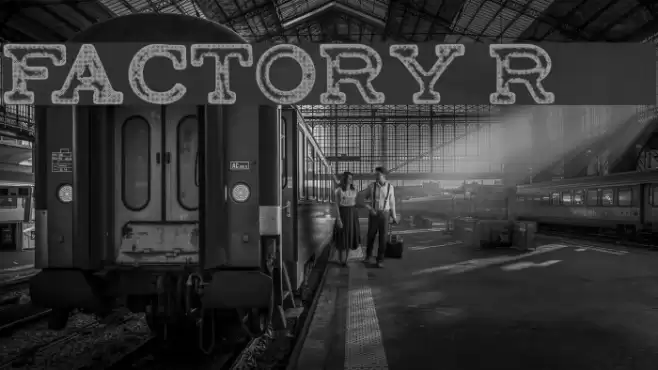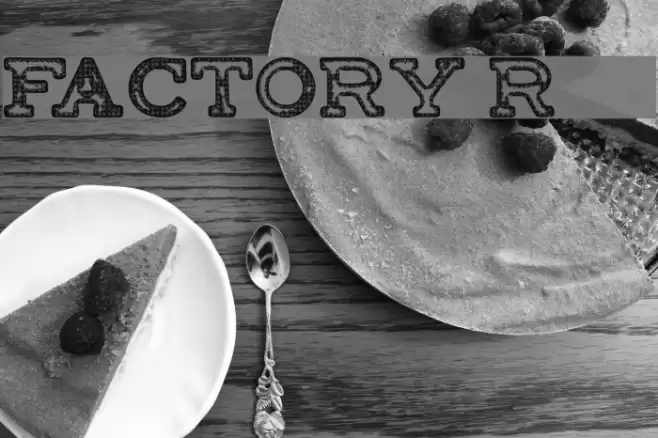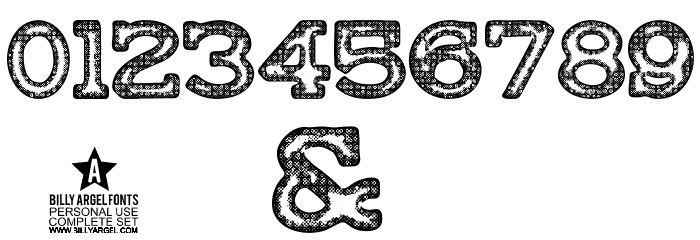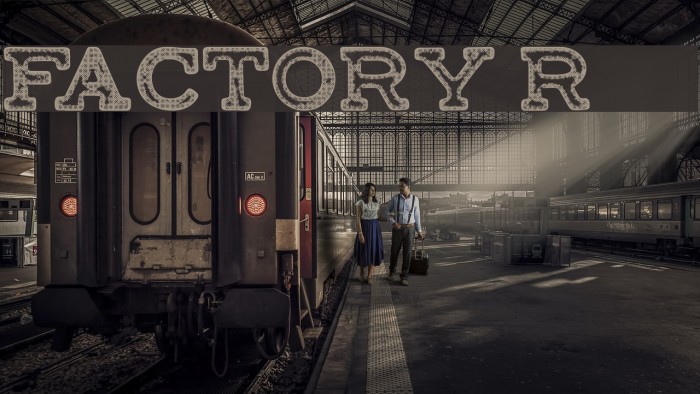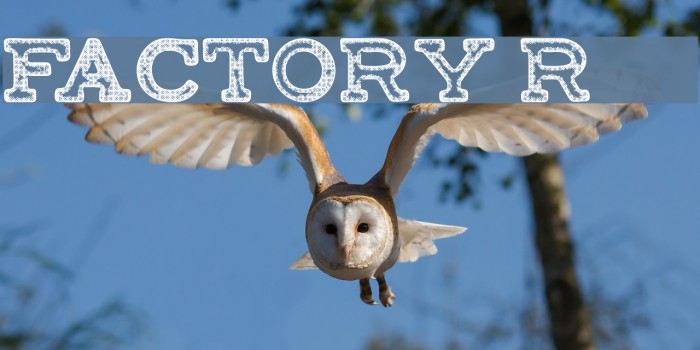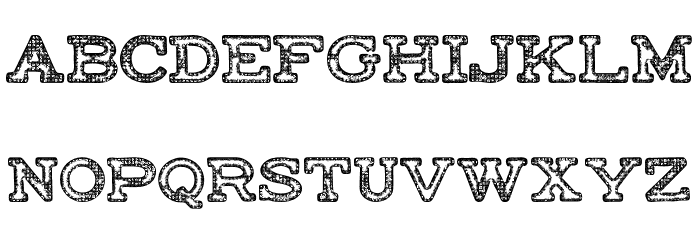
FACTORY-Regular Font
FACTORY-Regular Description
This font features a bold, industrial style with a textured, distressed appearance that gives it a rugged, vintage feel. The characters are uppercase and have a substantial presence, making them ideal for attention-grabbing designs. The texture within each letter adds a unique, handcrafted look, reminiscent of factory or industrial settings. The numbers and special characters maintain the same bold and textured style, ensuring consistency across all elements.
A bold, textured font with a vintage industrial style from Distorted Eroded fonts.
- Proposed Projects: Ideal for branding, posters, signage, and any project requiring a bold, vintage industrial aesthetic.
- Overall Style: Vintage, Industrial